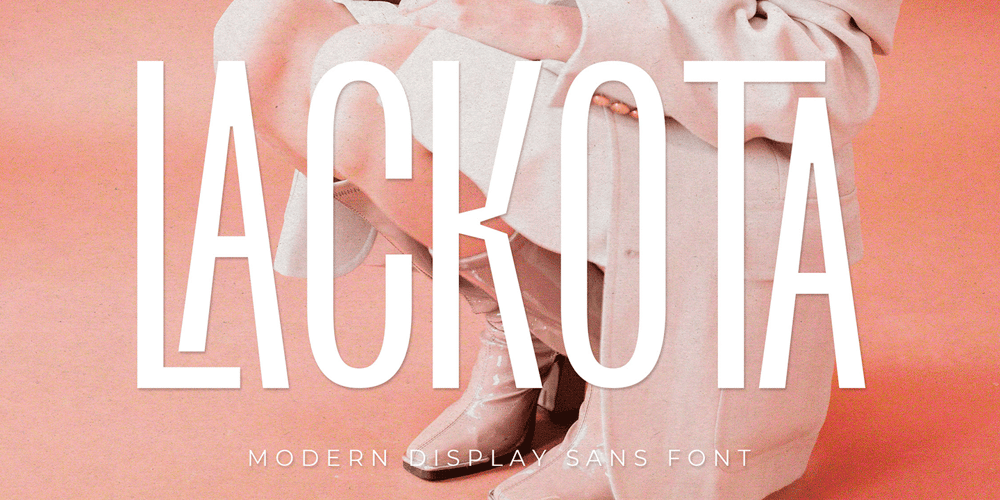
Lackota Font Family was designed by Rinto Dwi Nugroho and published by Almeera Studio. Lackota contains 1 styles and family package options. Introducing the new Lackota Modern Ligature San Serif Font!!! Lackota is a luxury and glamour sans font. This font is both modern and nostalgic and works great for logos, magazine, social media. Already matched up and ready to be used together for your next design!For those of you who are needing a touch of elegant, stylish, classy, chic and modernity for your designs, this font was created for you!Perfect for editorial projects, Logo design, Branding, product packaging, magazine headers, or simply as a stylish text overlay to any background image.No special software is required to type out the standard characters of the Typeface. To access the Opentype Ligatures, you will need software that supports Opentype features in fonts.